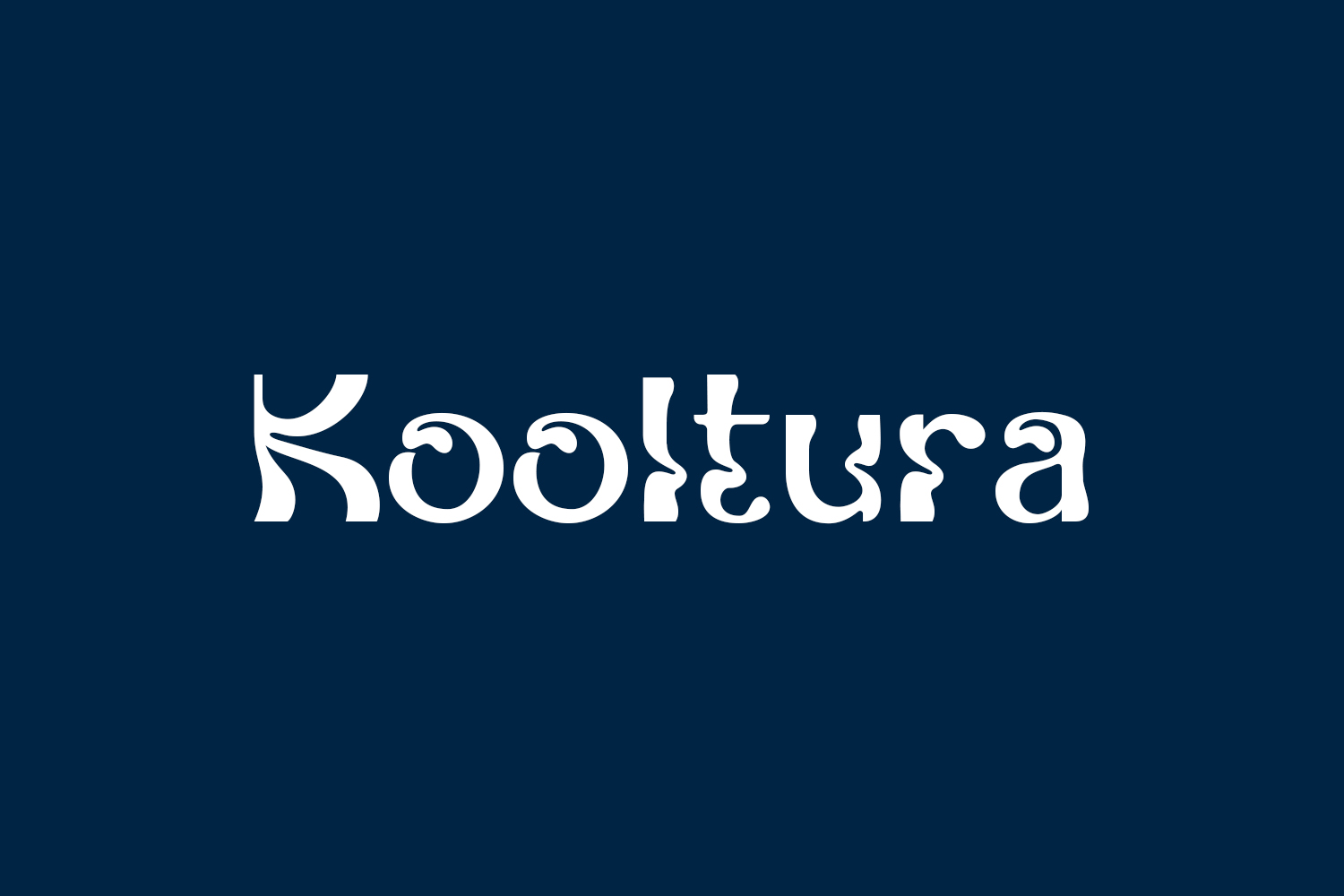
Kooltura Free Font exudes a sleek and sophisticated charm, with its fancy and groovy letterforms creating a visually stunning display that evokes feelings of elegance and creativity.
Designed by Ikiiko type